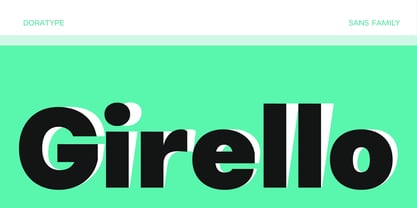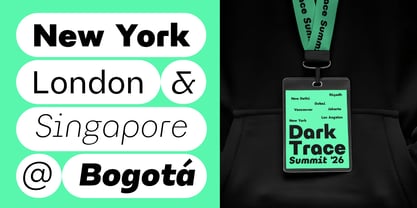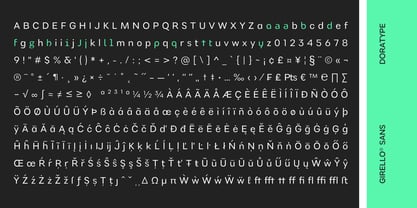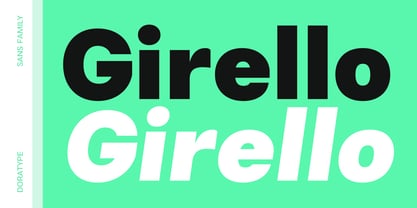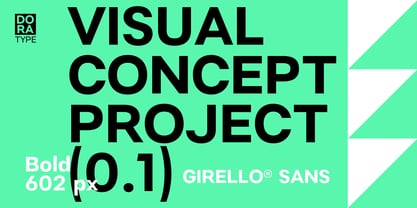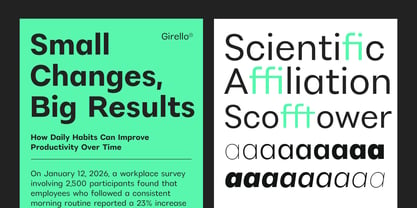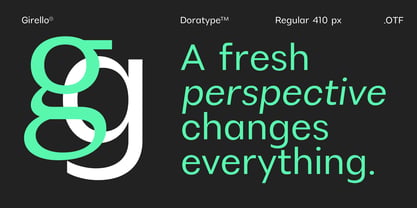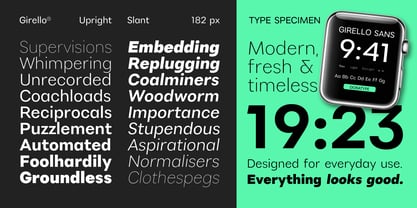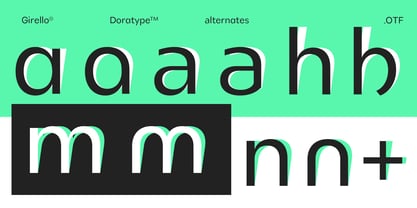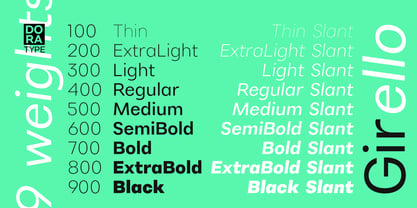
Girello
by Dora Typefoundry
The Girello Font Family was designed by Zahratul Laila and published by Dora Typefoundry. Girello contains 18 styles and family package options. More about this family
Girello is a modern sans-serif typeface that emphasizes geometric forms, balanced proportions, and a clean aesthetic. With smooth terminals, open counters, and a robust letter structure, it conveys a modern, approachable, and professional feel. Available in both upright and italic versions, the font maintains high legibility while offering versatility for a wide range of design needs.
Designed as a versatile typeface family, Girello is ideal for branding, visual identity, digital interfaces, editorial work, product packaging, and marketing materials. Its minimalist yet authoritative character allows it to adapt to diverse design styles, creating a clean, contemporary, and distinctive look across various media.
Designers: Zahratul Laila
Foundry: Dora Typefoundry